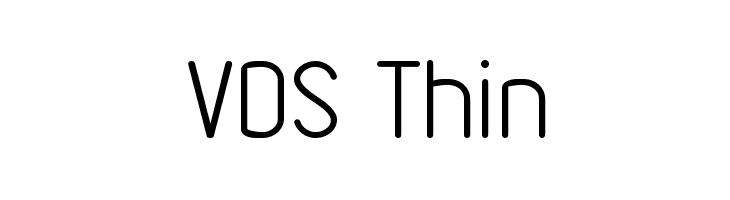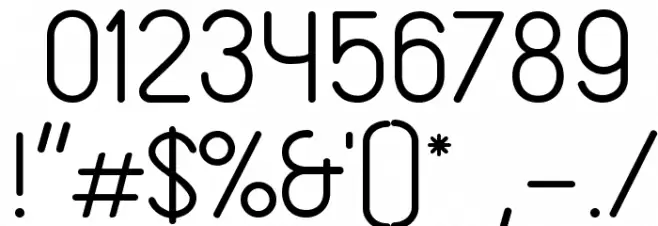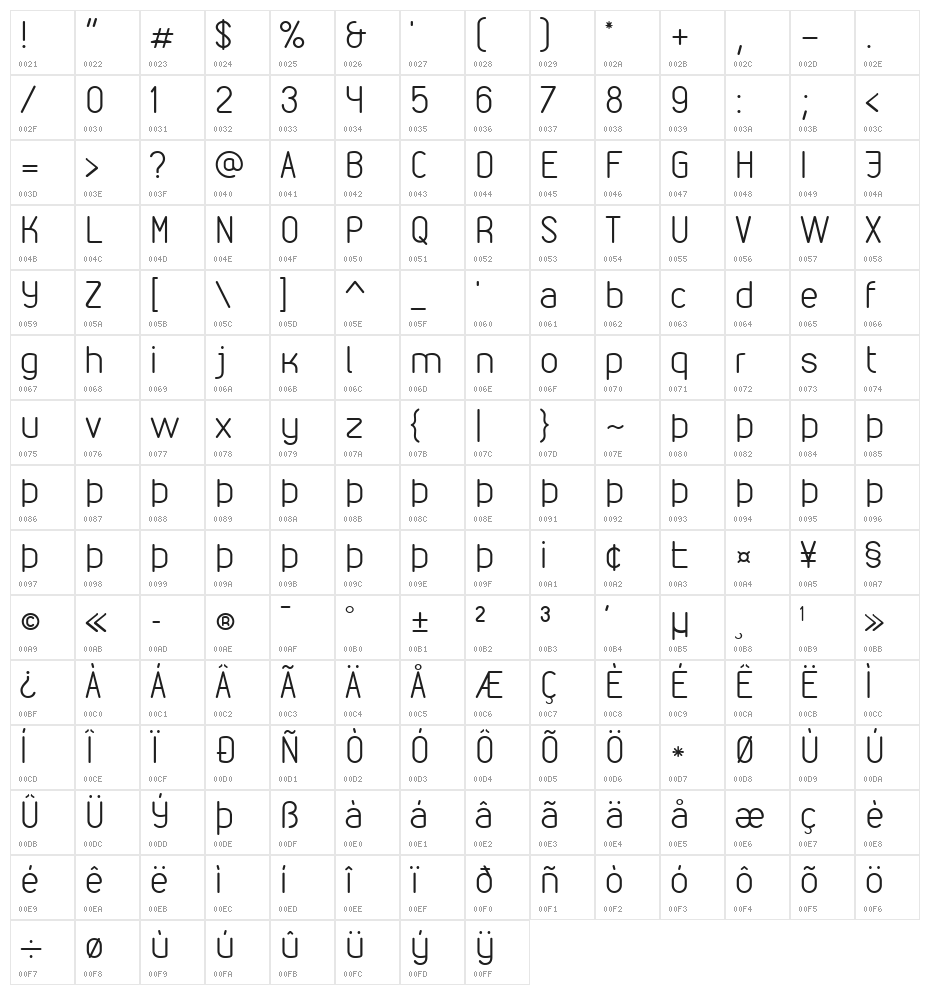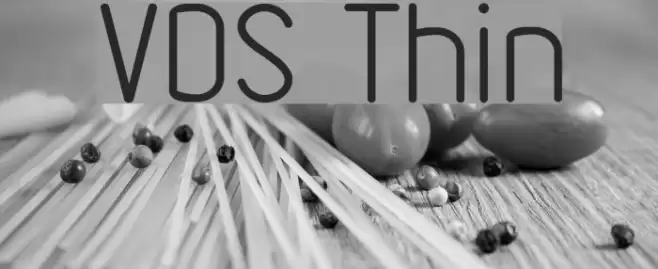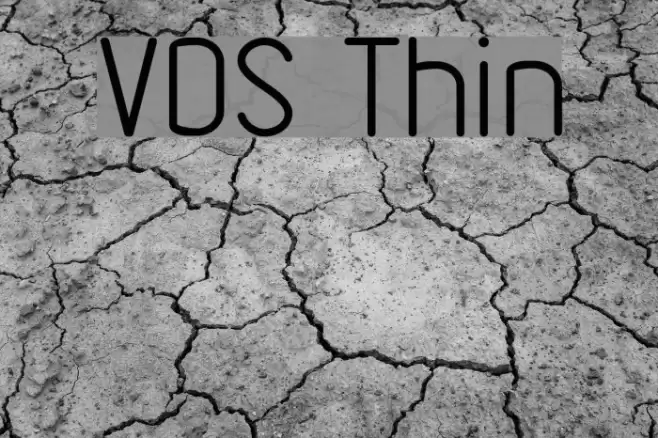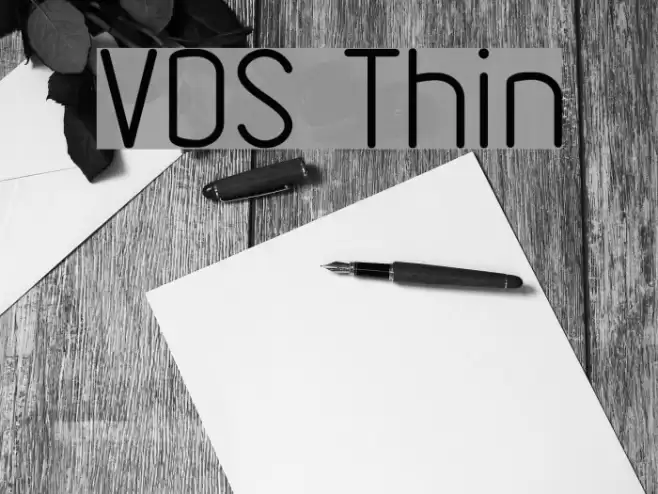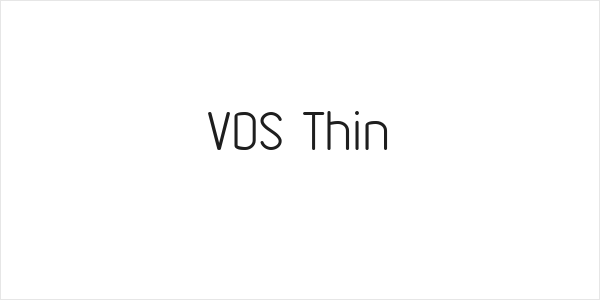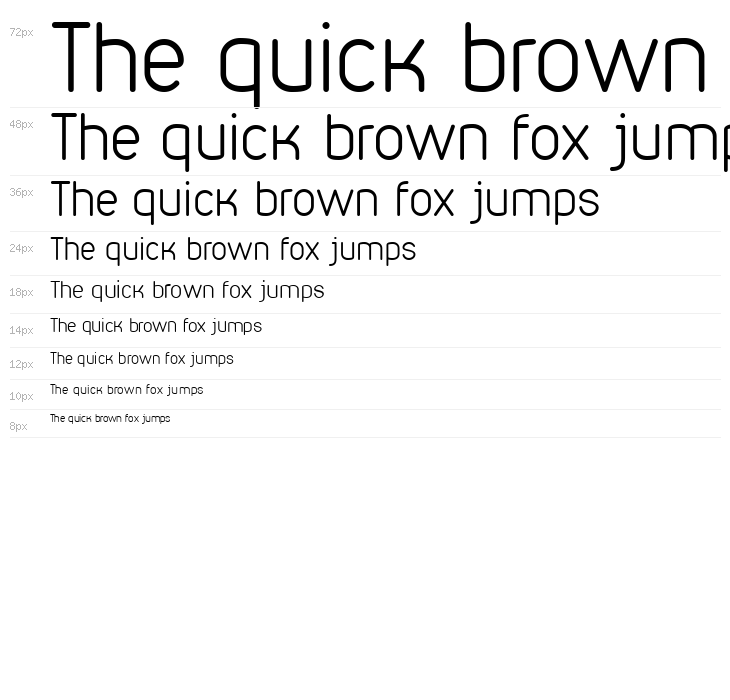
VDS Thin Font
VDS Thin Description
This font features a clean and modern sans-serif style with a thin, uniform stroke width. The characters are rounded and geometric, providing a sleek and minimalist appearance. The uppercase letters maintain a consistent height, while the lowercase letters are slightly shorter, enhancing readability. The numerals are clear and distinct, matching the overall aesthetic of the alphabet. Special characters are well-integrated, maintaining the same thin line weight and geometric style. This font's simplicity and clarity make it versatile for various design applications.
Use CaseHeadlines, Body text, Logos
Proposed ProjectsIdeal for digital interfaces, minimalist branding, modern posters, and clean editorial layouts.